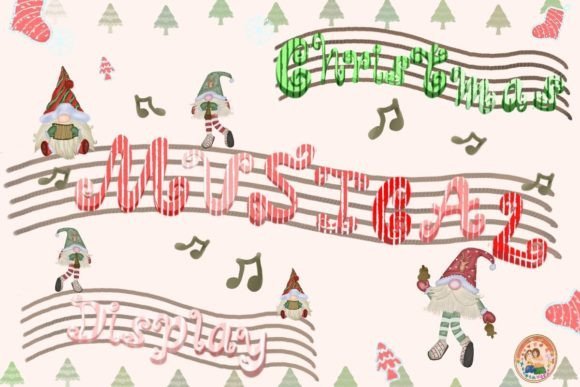
A Touch of Elegance to Your Designs: Christmas Musical Font
Have you ever stumbled upon a font that sparks creativity and sets your imagination ablaze? That’s exactly what happened when I discovered the enchanting Christmas Musical Font. As I sat amidst a flurry of festive decorations, sipping hot cocoa and brainstorming ideas for my next design project, I knew I had found the perfect companion to bring my visions to life.
This magical handwritten font is a masterclass in elegance, carefully crafted to add a touch of sophistication to any design. Whether you’re a seasoned designer or a DIY enthusiast, the Christmas Musical Font is the perfect tool to elevate your creations and make them truly special.
With its versatility and unique charm, the Christmas Musical Font is a valuable asset for designers looking to add a personal touch to their work. So, get ready to unleash your creativity and make this holiday season one to remember with the Christmas Musical Font!
Key Features of Christmas Musical Font
- Unique Characteristics: The font features intricate musical notes, holly leaves, and festive ornaments, creating a whimsical and holiday-themed design.
- Font Styles: The font family includes regular, bold, italic, and bold-italic styles, providing versatility for various design applications.
Designer Review: Christmas Musical Font
I must say, I was excited to dive into the Christmas Musical Font, especially with the festive season just around the corner ✨. The font is a great combination of fun, playful, and musical elements that are sure to bring a smile to anyone’s face. The designer has done a fantastic job of incorporating Christmas and musical symbols in a creative way, making it perfect for holiday-themed designs.
Here are some of the things that really stand out:
- Unique and creative design: The font is unlike any other Christmas font I’ve seen, with a great balance of musical and festive elements.
- High-quality glyphs: The designer has put a lot of attention to detail in creating high-quality glyphs that are sure to print or display well.
- Great for holiday-themed designs: This font is perfect for anyone looking to add a festive touch to their designs, whether it’s for Christmas cards, advertisements, or social media posts.
However, there are a few limitations that I’d like to point out ⚠️:
- Limited character set: The font only includes uppercase and lowercase letters, with no punctuation or special characters.
- No italic or bold styles: While the font is great for regular text, it would be nice to have italic or bold styles for added emphasis.
Overall, I’d give the Christmas Musical Font 4 out of 5 stars. While it’s not perfect, it’s a fun and creative font that’s sure to bring a smile to anyone’s face. With a few more features added, it could be a top contender for holiday-themed designs ✨.
Use the Christmas Musical Font in conjunction with festive graphics and colors to create a cohesive holiday design.
Experiment with different font sizes and styles to add visual interest to your design.
Consider using the font in combination with other holiday-themed fonts to create a unique and eye-catching look.
Christmas cards and invitations
Holiday party decorations and signage
Christmas-themed social media posts and graphics